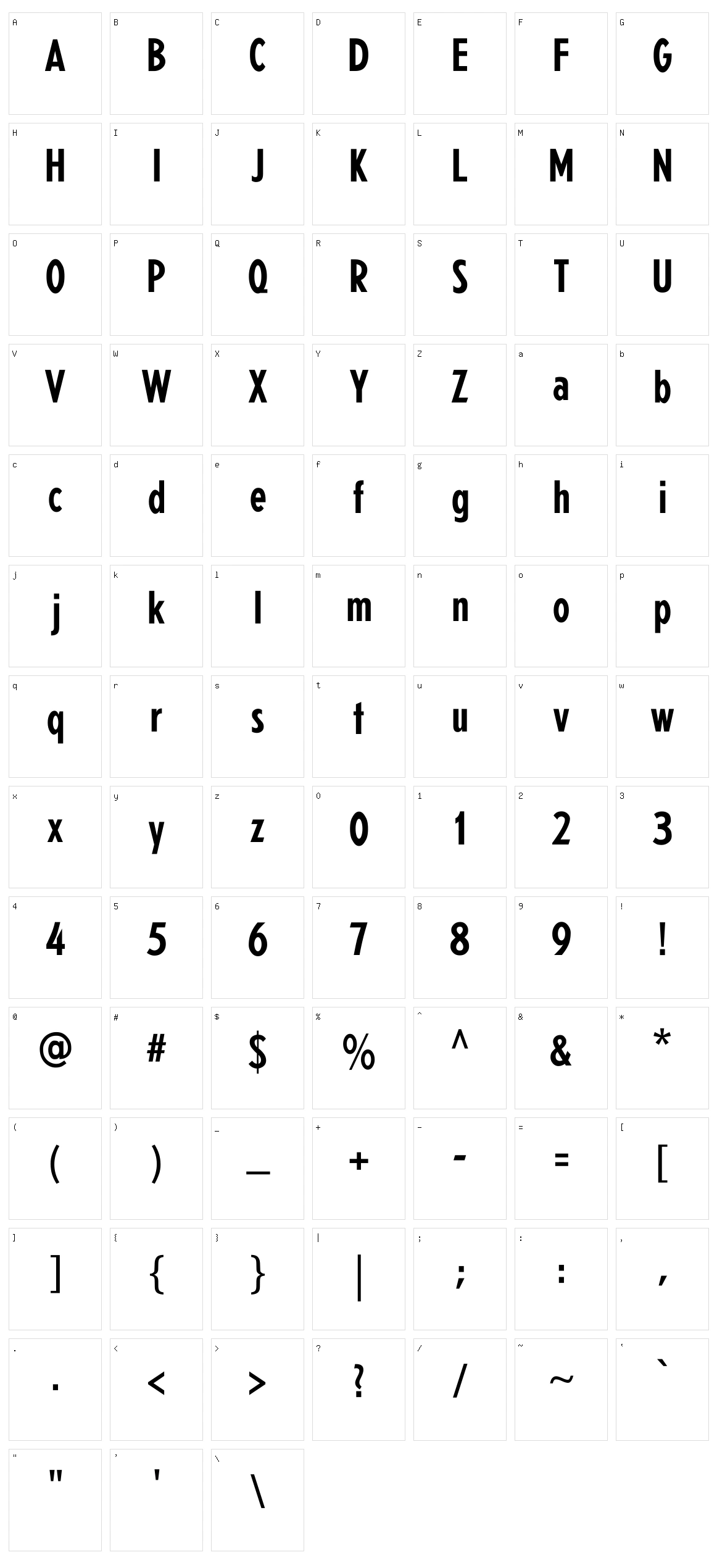
Fontfamily Neu5Land by Uwe Borchert
This Typeface ist based on the Schmale Erbar Grotesk
(Jakob Erbar, 1922ff) and was very popular on signs
in the former German Democratic Republic/Deutsche
Demokratische Repubik (GDR/DDR)